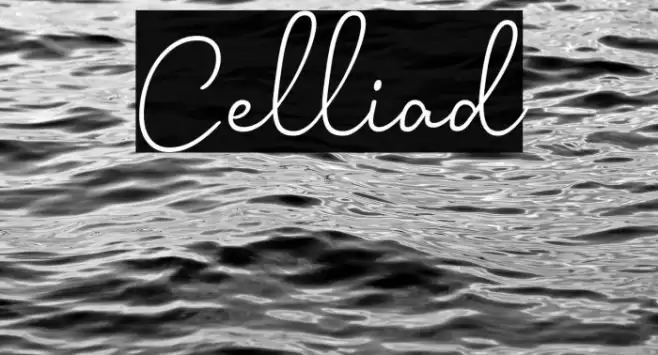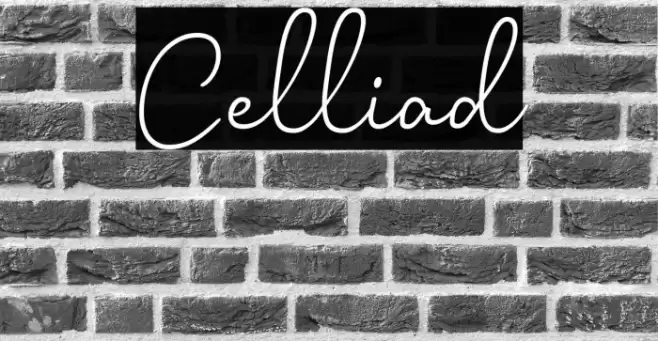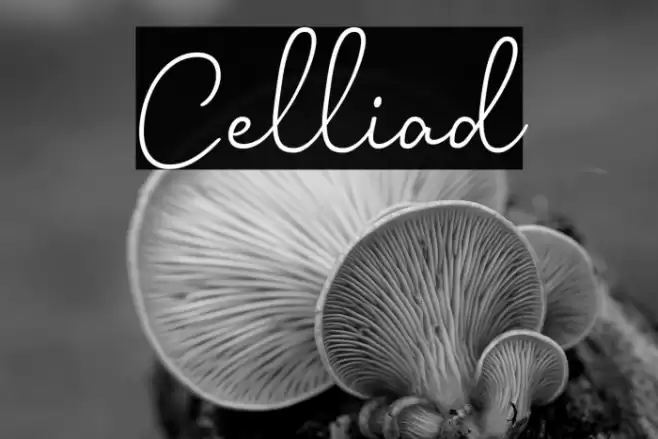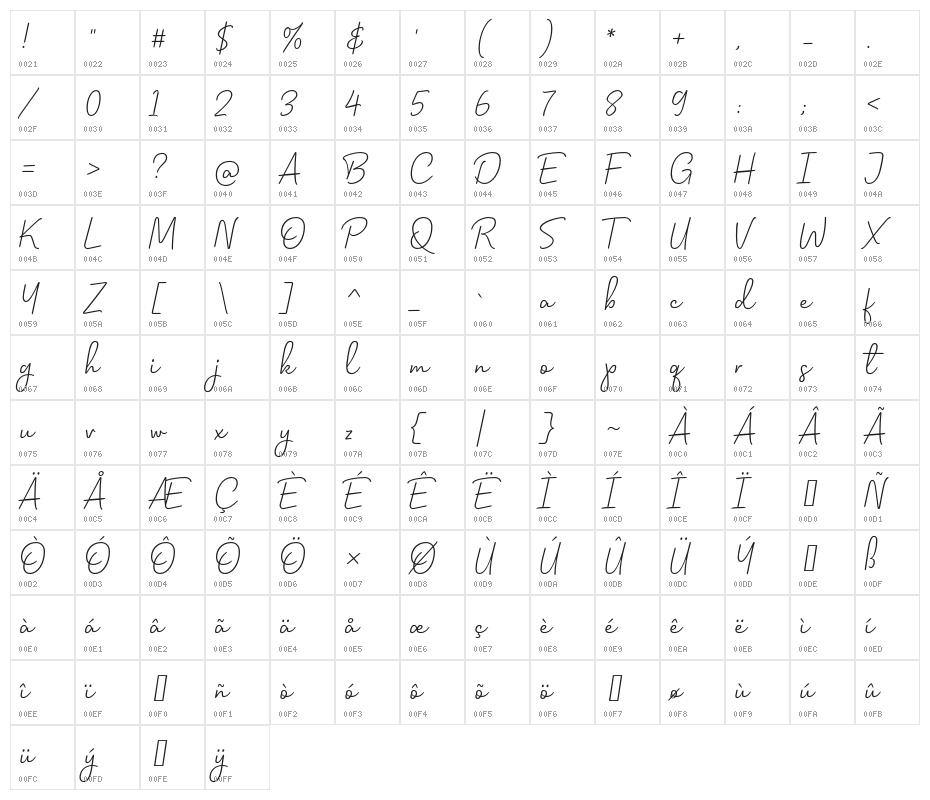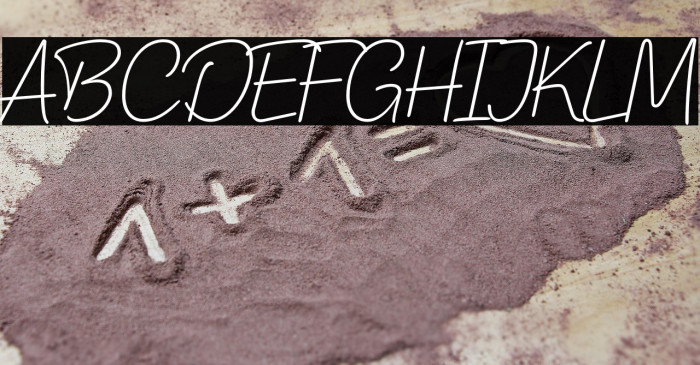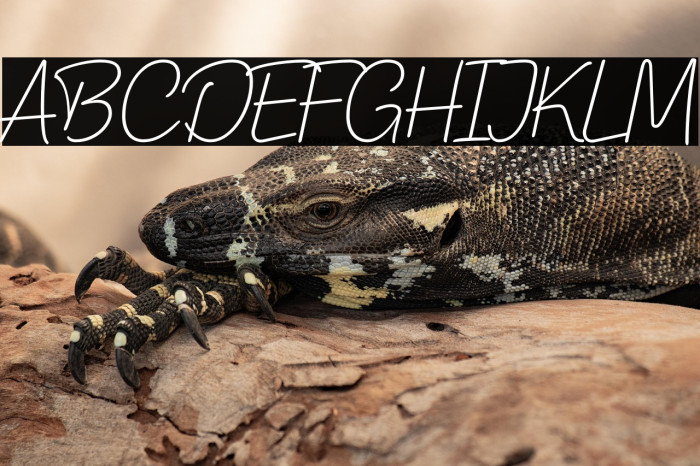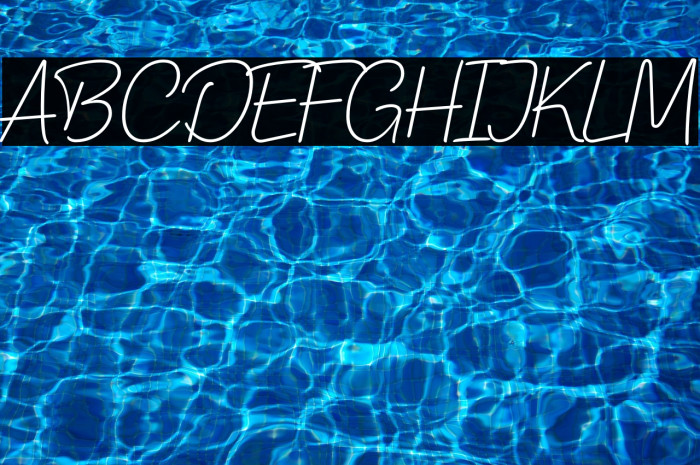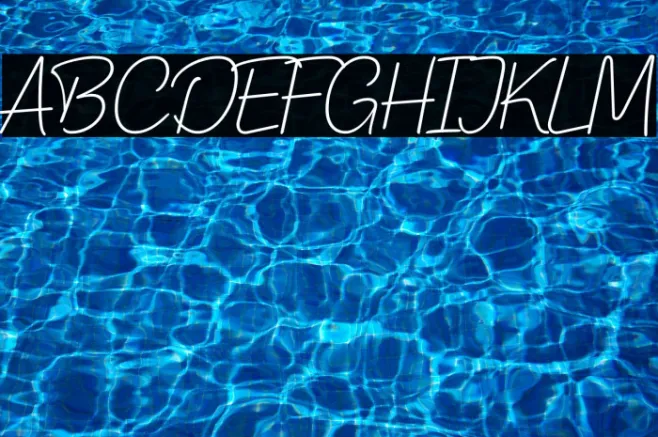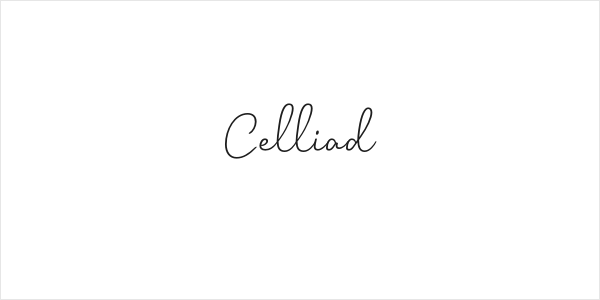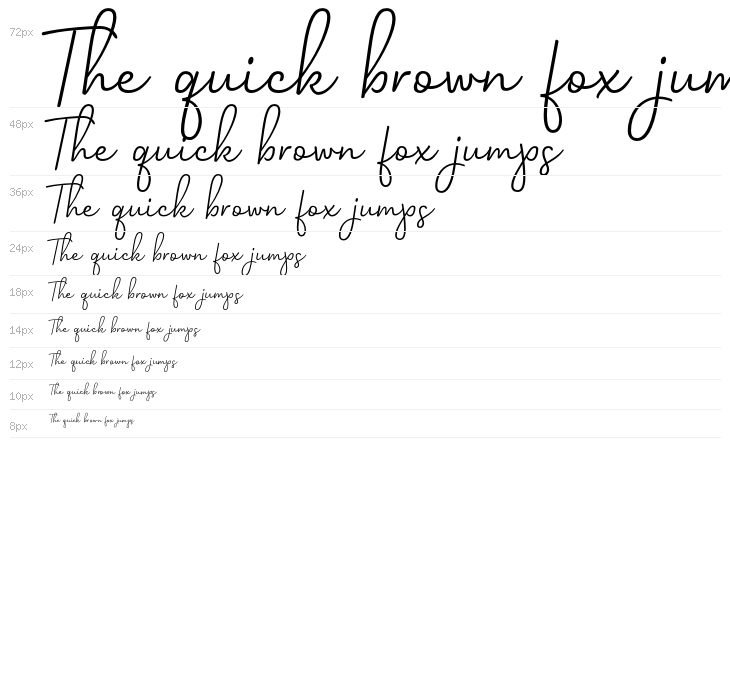
Celliad Font
Celliad Description
This font features a fluid, handwritten style with a modern twist. The uppercase letters are tall and slightly narrow, with a consistent stroke width that gives them a clean and elegant appearance. The lowercase letters are more playful, with loops and curves that add a touch of whimsy. The numbers are clear and easy to read, maintaining the same fluidity as the letters. Special characters are well-integrated, matching the overall style. The font's smooth curves and flowing lines make it ideal for projects that require a personal touch.
A modern, fluid handwritten font with elegant curves from Regular fonts.
- Proposed Projects: Ideal for wedding invitations, personal branding, greeting cards, and social media graphics.
- Use Case: Logos, Headlines, Invitations